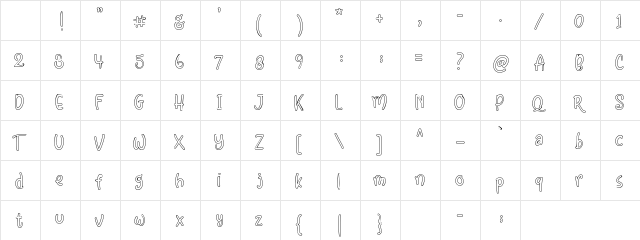
Little Clusters Outline Demo is built around its visual character rather than neutral utility - its distinctive forms are designed to make an impression at display sizes.
Font Pairing: Pair with a clean neutral sans-serif for body copy to let Little Clusters Outline Demo's character lead without overwhelming the composition.
Pro Tip: Use Little Clusters Outline Demo exclusively at display sizes - it was designed to be seen, not read at length. Let a neutral companion handle body copy.